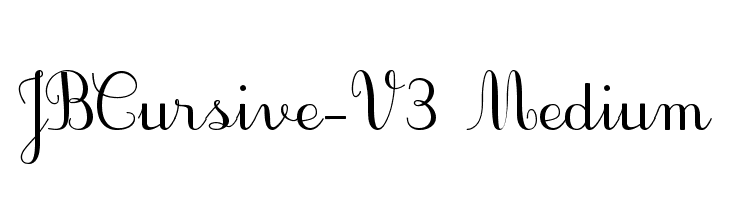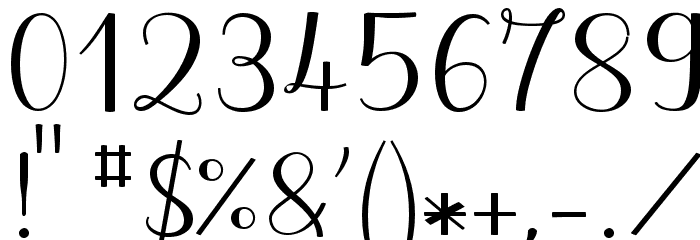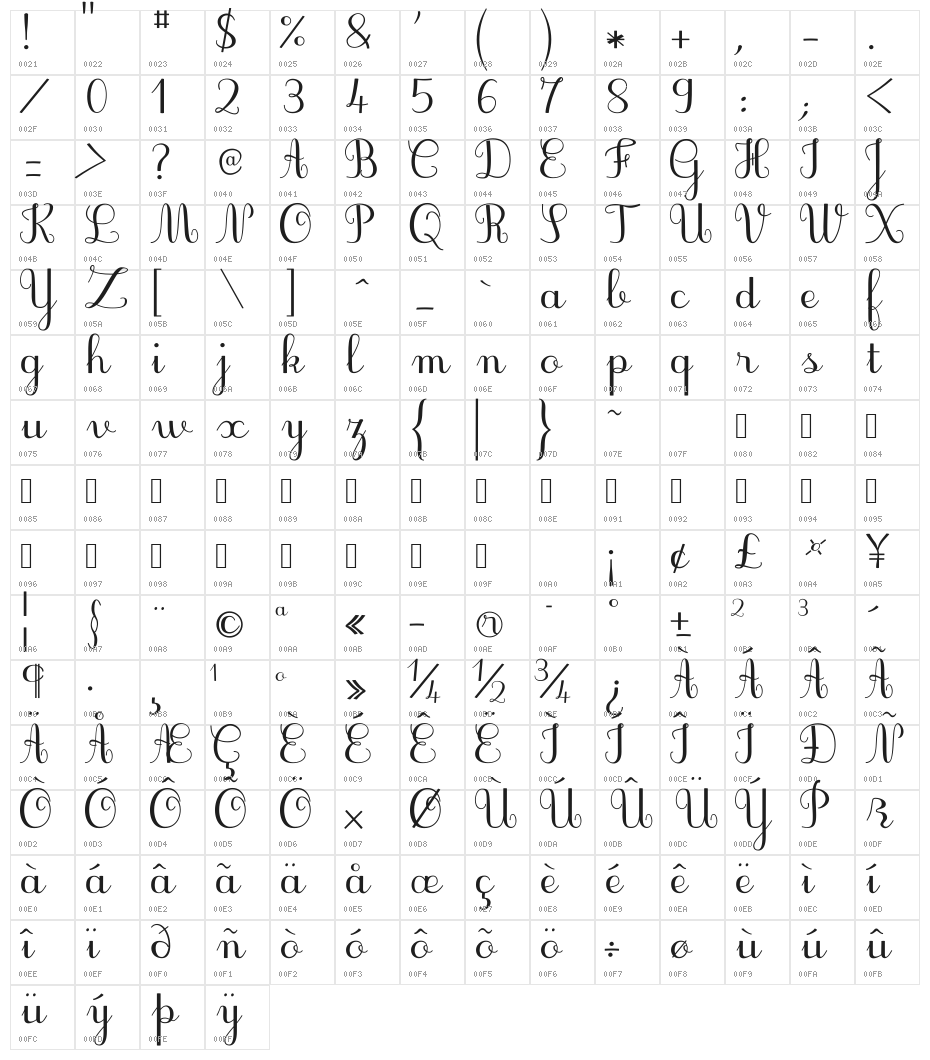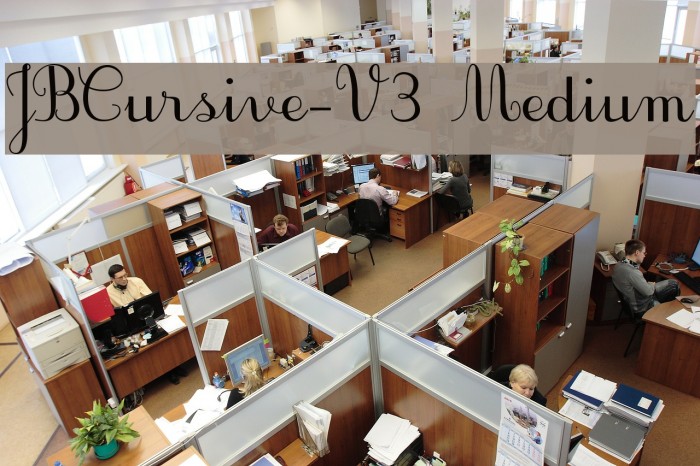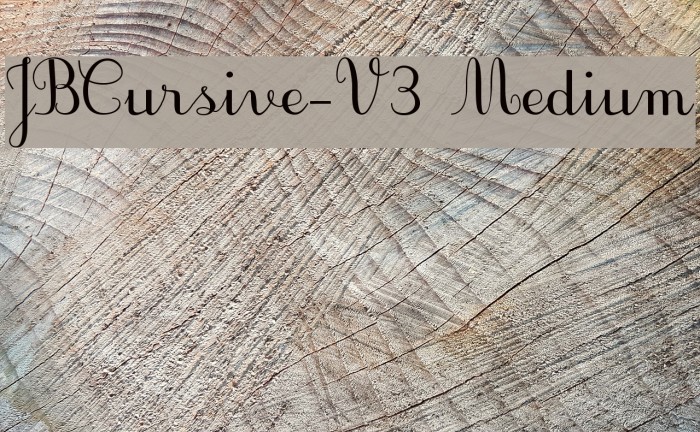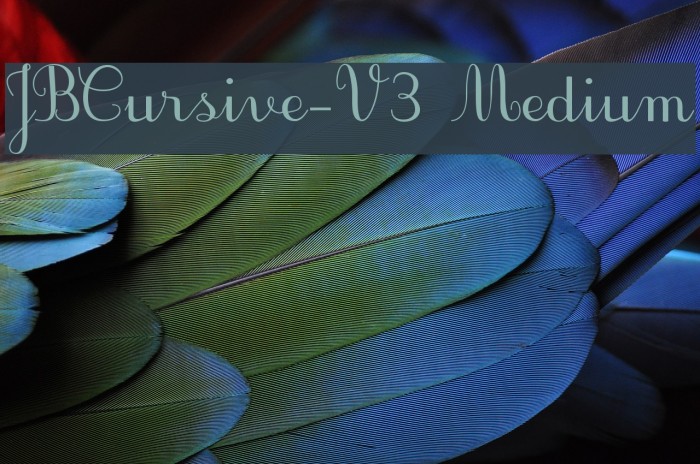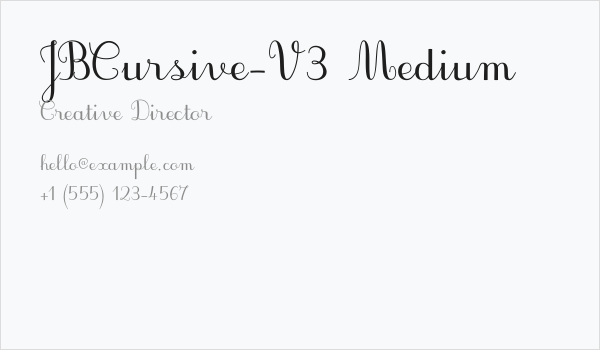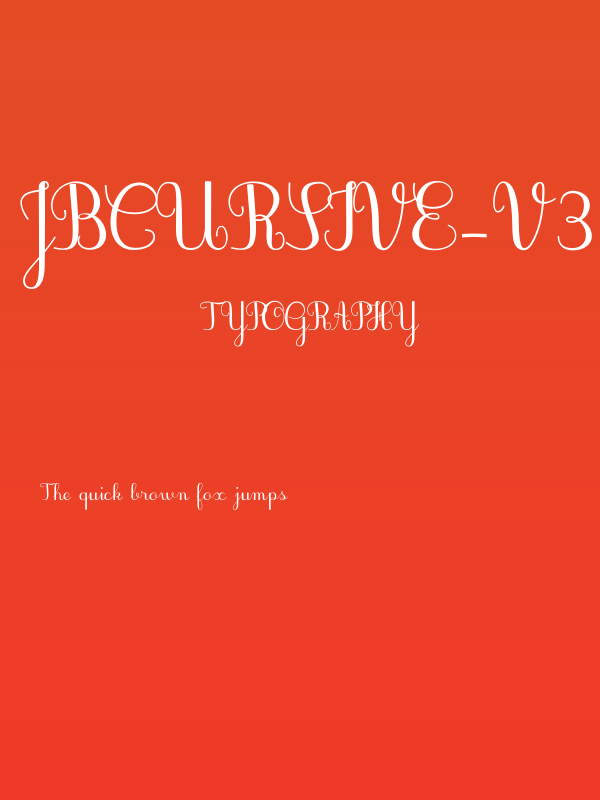
JBCursive-V3 Medium Font
JBCursive-V3 Medium Description
This elegant script font features flowing, interconnected characters that exude a sense of sophistication and grace. The uppercase letters are ornate, with intricate loops and swirls that add a decorative flair. The lowercase letters maintain a consistent style, with smooth curves and a harmonious flow. The numerals are distinct yet complementary to the overall script style, maintaining readability while preserving the font's aesthetic. Special characters are thoughtfully designed to match the elegance of the alphabet, making this font versatile for various applications.